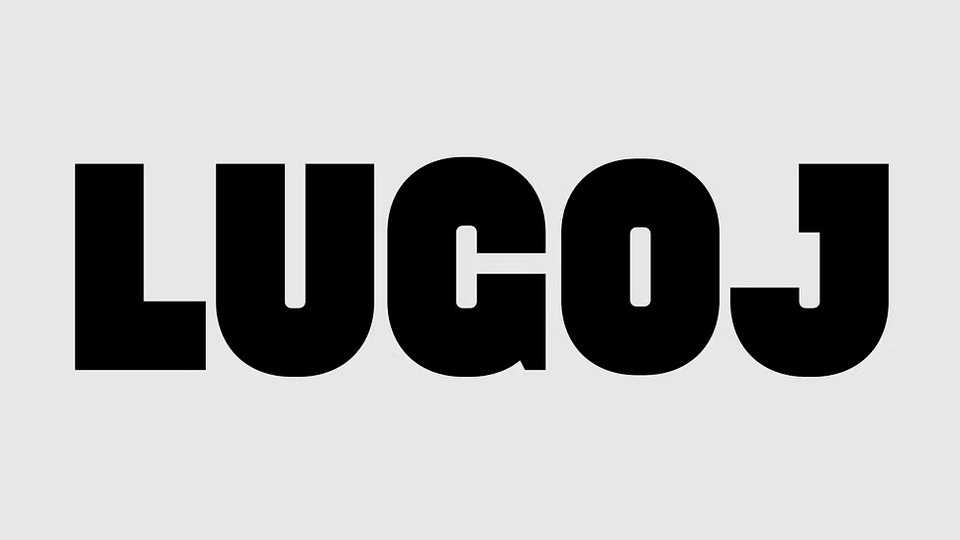
Download Lugoj font, a simple and effective display sans-serif typeface. It works best for headlines and posters; it’s caps only.
Designer: Tudor Banciu